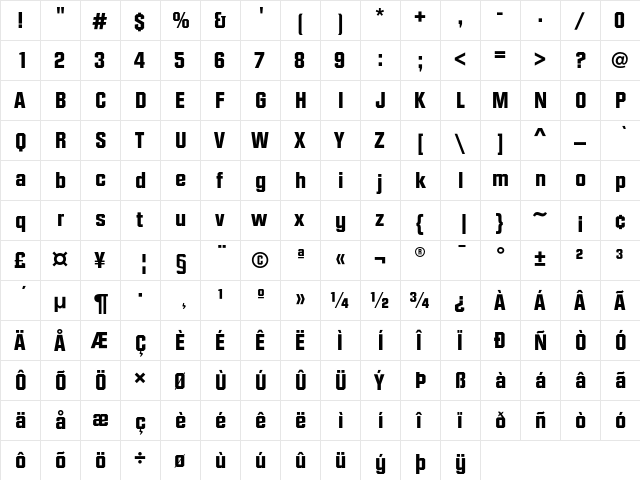
DiamanteEF Bold
Design Context for DiamanteEF Typeface
DiamanteEF offers clean, dependable letterforms without strong stylistic allegiance, making it a practical choice for designers who need flexibility. The heavy weight commands attention and anchors typographic hierarchies.